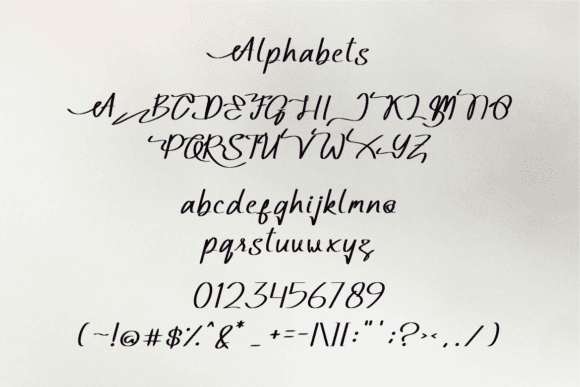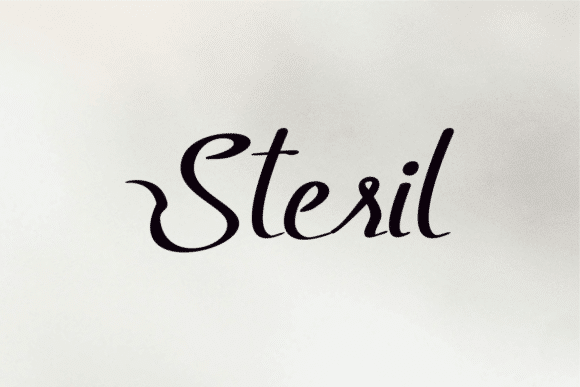
Rubbariyas Font Font
ponuppo
Rubbariyas is an elegant, classy, and modern handwritten font. It’s a great font for fashion, apparel projects, signatures, album covers, logos, branding, magazines, social media, and advertisements, but also works great for other projects.